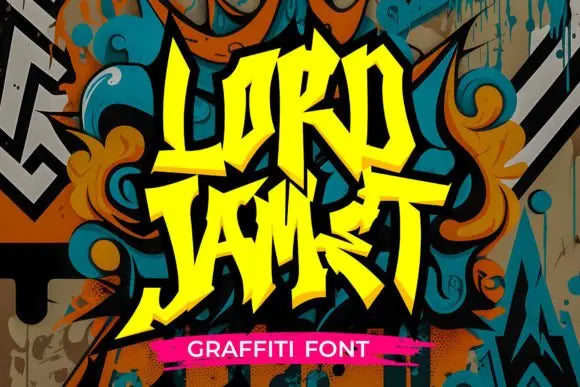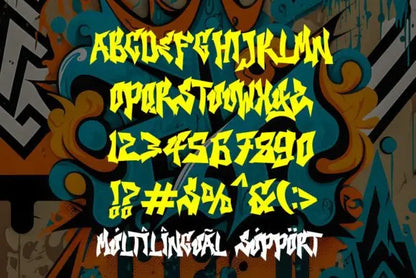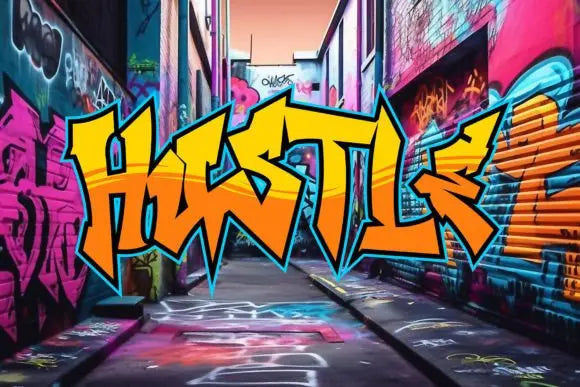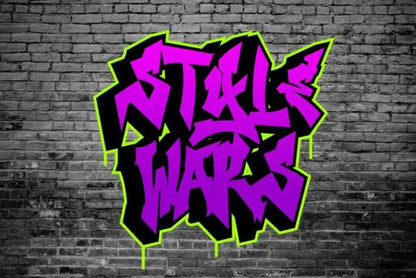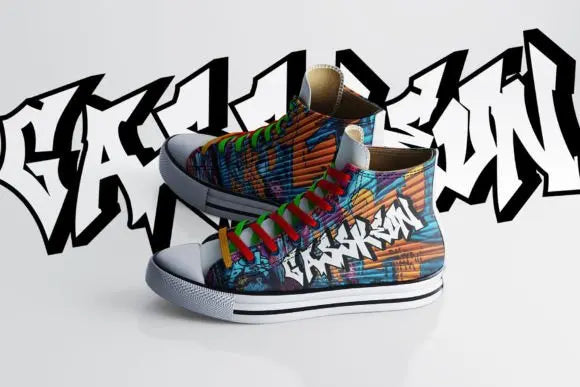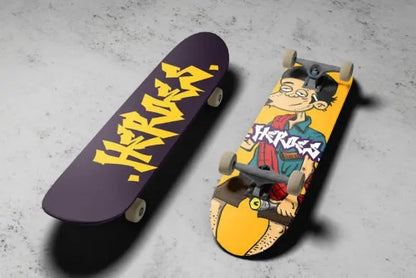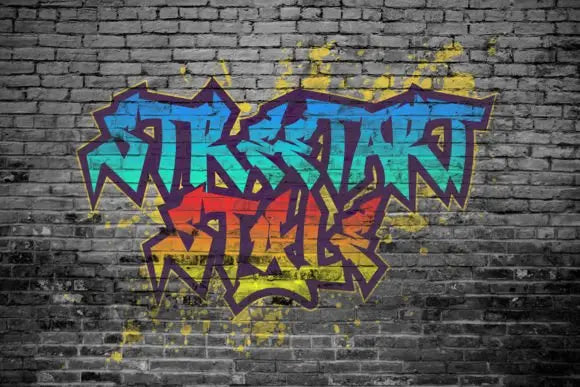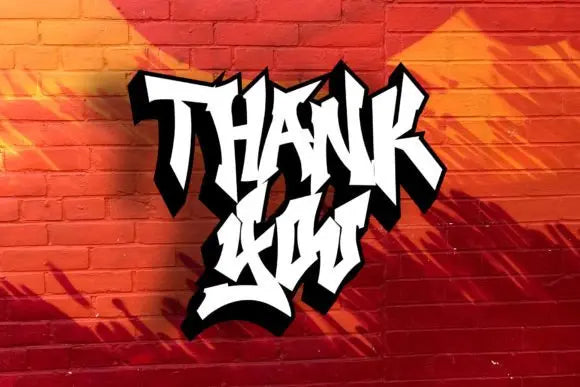
Lord Jamet Font
Command Attention with Lord Jamet Font
Why Lord Jamet Font is Perfect for Elegant Branding?
For those who love a touch of royal elegance, Lord Jamet Font is the ideal choice. This sophisticated typeface works beautifully for luxury branding, formal invitations, and high-end advertising.
Lord Jamet Font – Elegant, Classic & Refined
With smooth curves and an exquisite serif design, this font brings an air of sophistication to any project.
Key Features of Lord Jamet Font:
✦ Timeless & Elegant Design – Ideal for luxury branding and invitations. ✦ Refined & Readable – Works well in editorial layouts and formal designs. ✦ Perfect for Digital & Print Use – Great for logos, stationery, and social media posts. ✦ Fully Compatible & Easy to Edit – Works with Photoshop, Illustrator, and Canva.
Add a touch of class to your designs with Lord Jamet Font – sophisticated, stylish, and timeless.